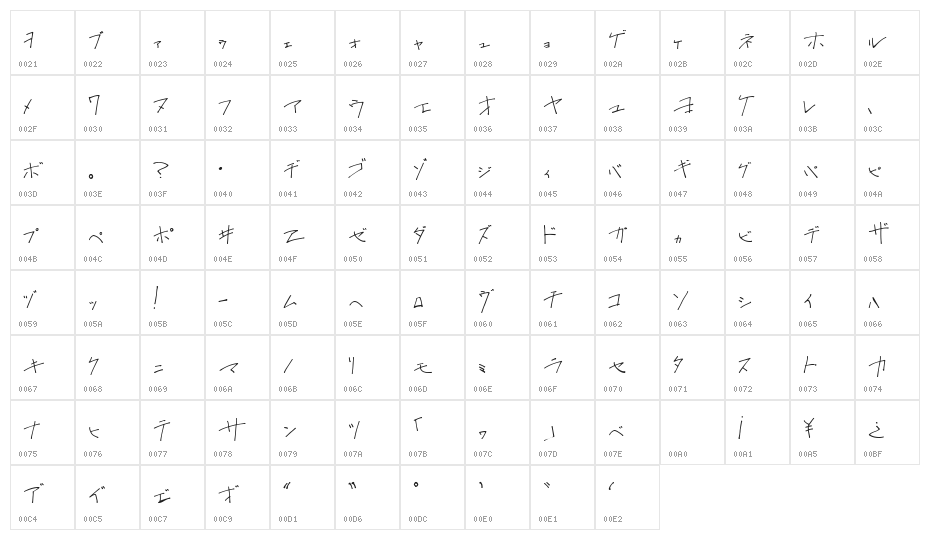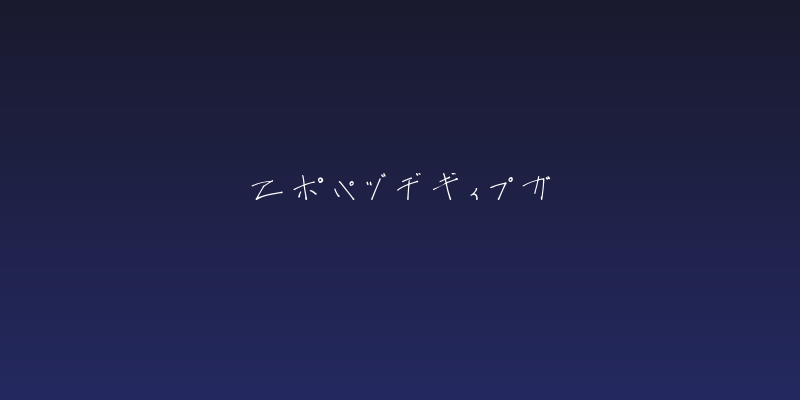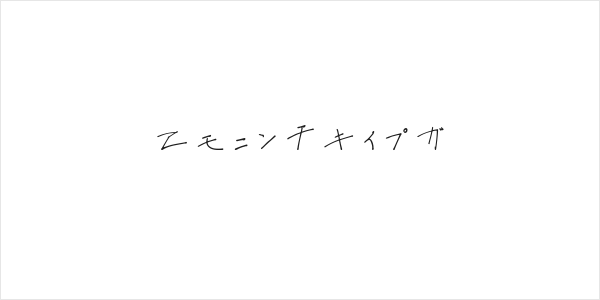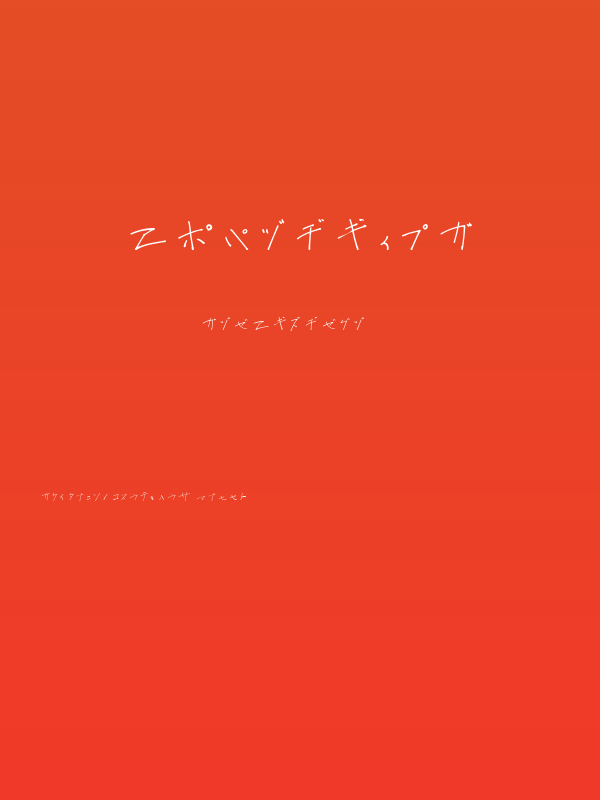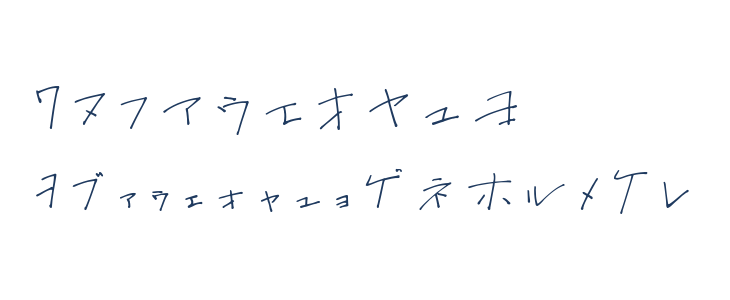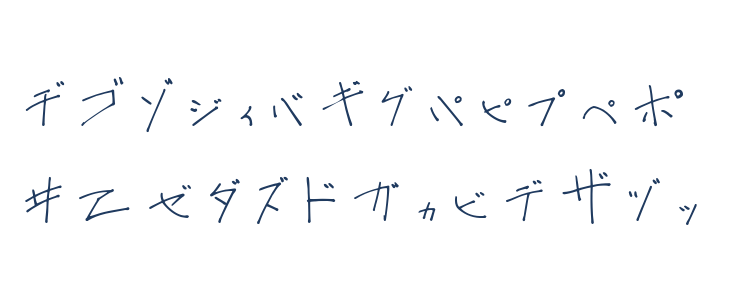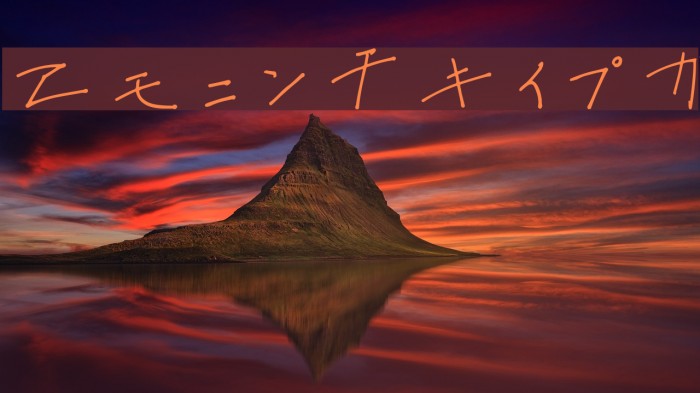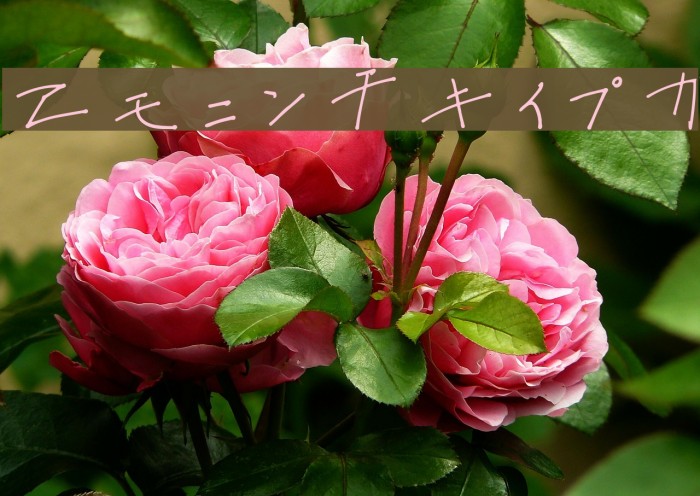
OmiyageKT Font
OmiyageKT Description
This font features a playful and informal handwritten style, characterized by its irregular strokes and casual appearance. The letters are slightly tilted, giving a dynamic and lively feel. The strokes are thin and uneven, adding to the hand-drawn aesthetic. This style is reminiscent of quick, spontaneous writing, making it suitable for projects that require a personal touch. The overall look is approachable and friendly, with a touch of whimsy.
| Use Case | Informal notes, playful designs, personal projects. |
| Proposed Projects | Ideal for greeting cards, personal notes, informal invitations, and playful branding. |